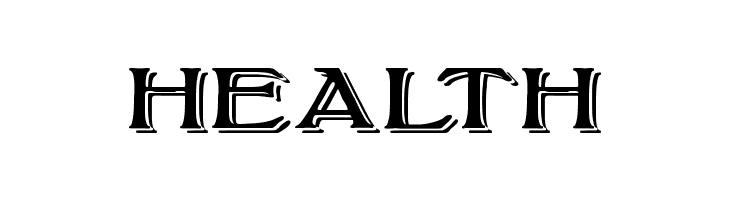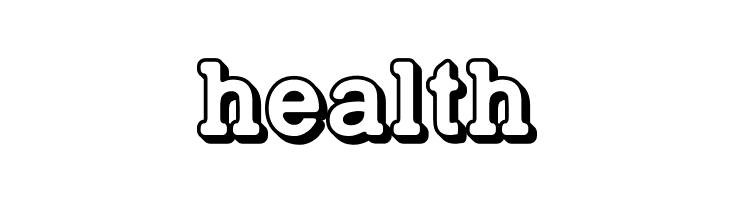
An elegant script font with flowing, cursive style and delicate flourishes.
A futuristic, shadowed font with a bold, geometric design.
A whimsical, nature-inspired font with hand-drawn, twig-like characters.
An elegant, italic script font with dramatic flourishes and vintage charm.
An elegant, decorative font with heart motifs, perfect for romantic themes.
A bold, expressive handwritten font with a graffiti-like style.
A playful, decorative font with seashell motifs, perfect for beach-themed designs.
A bold, geometric font with a shadow effect for a modern, futuristic look.
A dramatic Gothic script with sharp, angular lines and intricate detailing.
A bold, shadowed font with a playful, three-dimensional style.
An ornate script font with elaborate swashes and calligraphic elegance.
A playful and chaotic font with irregular, dynamic letterforms.
A flowing, cursive font with a handwritten, artistic style.
A bold, decorative font with intricate detailing and vintage charm.
A bold, decorative font with intricate patterns and a 3D shadow effect.
A dynamic and elegant script font with flowing, cursive letterforms.
A playful and elegant script font with a handwritten style.
A decorative and elegant script font with ornate uppercase letters and smooth lowercase characters.
An elegant, flowing script font with intricate loops and flourishes.
An elegant script font with flowing, interconnected letters and delicate flourishes.
An elegant script font with flowing, cursive letterforms and decorative swashes.
A playful and elegant script font with a handwritten style.
A charming, handwritten-style font with elegant, fluid strokes.
A playful and elegant handwritten font with a charming, personal touch.
A lively and expressive script font with fluid strokes and dynamic style.
An elegant script font with intricate swirls, perfect for formal invitations.
A sophisticated, cursive font with elegant loops and swirls.
A romantic, cursive font with elegant, flowing strokes.
An elegant, flowing script font with a sophisticated, handwritten style.
An elegant and flowing script font, perfect for romantic and formal designs.
An elegant, decorative font with intricate swirls and flourishes.
A bold, shadowed font with a dynamic, speedy appearance.
A romantic, cursive font with elegant loops and a vintage charm.
A modern, handwritten font with a casual and expressive style.